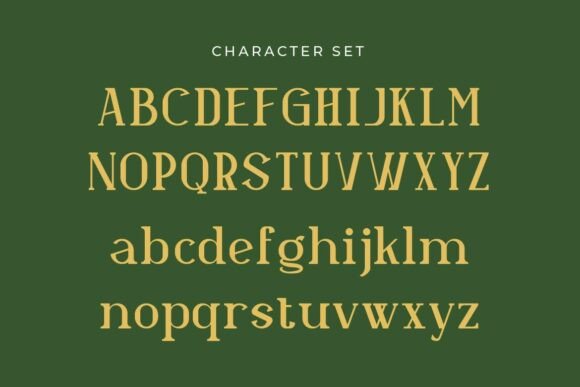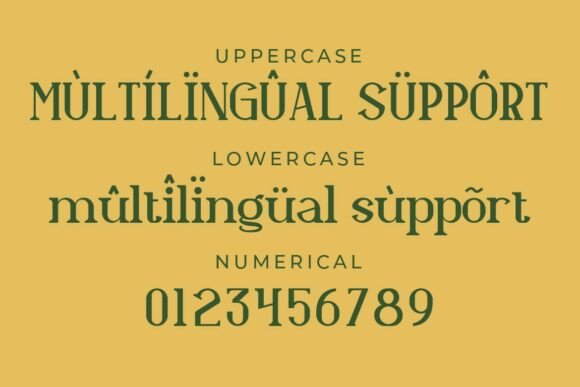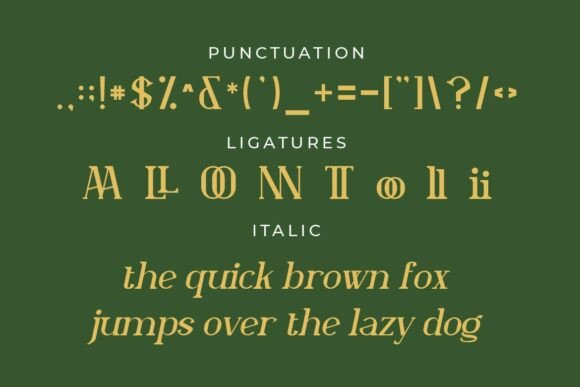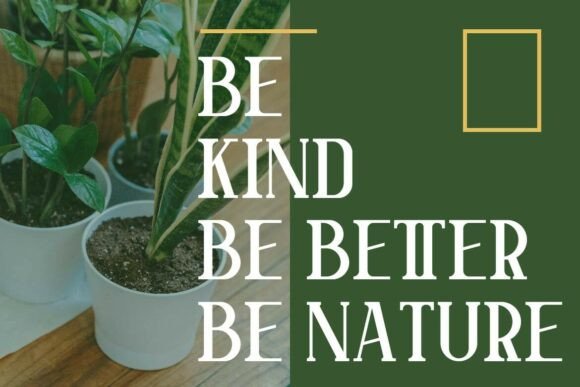
Introducing Antara Font: Elevate Your Designs with Timeless Sophistication
In the world of typography, a well-crafted font can make all the difference in elevating your designs from ordinary to extraordinary. Meet Antara Font, a refined serif font that seamlessly blends timeless sophistication with contemporary finesse. Designed to bring a touch of luxury and clarity to your creations, Antara is the perfect choice for designers and crafters seeking to make a lasting impression.
The Art of Elegance: Antara’s Design Philosophy
Antara Font is the epitome of elegance, boasting elegant curves, sharp serifs, and balanced contrast that work in harmony to create a visually stunning typeface. The design philosophy behind Antara is rooted in the pursuit of perfection, with a focus on creating a font that exudes confidence and sophistication. Whether you’re working on branding, editorial layouts, book covers, invitations, or high-end packaging, Antara brings a level of refinement that is sure to impress.
Key Features of Antara Font
- Elegant Curves: Antara’s curves are meticulously crafted to create a sense of fluidity and movement, adding a touch of dynamism to your designs.
- Sharp Serifs: The font’s serifs are carefully designed to provide a sense of precision and clarity, making Antara perfect for high-end applications.
- Balanced Contrast: Antara’s contrast is expertly balanced to create a harmonious visual flow, ensuring that your designs are both aesthetically pleasing and easy to read.
Applications for Antara Font
Antara Font is an incredibly versatile typeface that can be used in a wide range of design applications, including:
- Branding: Create a lasting impression with Antara’s sophisticated and elegant design, perfect for luxury brands and high-end products.
- Editorial Layouts: Add a touch of refinement to your editorial designs, such as magazines, newspapers, and blogs, with Antara’s classic yet contemporary style.
- Book Covers: Make your book covers stand out with Antara’s elegant design, perfect for fiction, non-fiction, and coffee table books.
- Invitations: Create stunning invitations for special occasions, such as weddings, galas, and corporate events, with Antara’s sophisticated and elegant design.
- High-End Packaging: Elevate your packaging designs with Antara’s luxurious and refined style, perfect for high-end products and premium brands.
Why Choose Antara Font?
With so many fonts available, why choose Antara? Here are just a few reasons why Antara stands out from the crowd:
- Timeless Sophistication: Antara’s classic design ensures that your creations will remain timeless and relevant for years to come.
- Contemporary Finesse: The font’s modern twists and refined features make it perfect for contemporary designs that require a touch of sophistication.
- Versatility: Antara’s versatility makes it suitable for a wide range of design applications, from branding to packaging.
- Legibility: Antara’s balanced contrast and clear design ensure that your text is always easy to read, even at small sizes.
In conclusion, Antara Font is a refined serif font that offers a perfect blend of timeless sophistication and contemporary finesse. With its elegant curves, sharp serifs, and balanced contrast, Antara is the ideal choice for designers and crafters seeking to elevate their designs with a touch of luxury and clarity. Whether you’re working on branding, editorial layouts, book covers, invitations, or high-end packaging, Antara Font is sure to make a lasting impression.